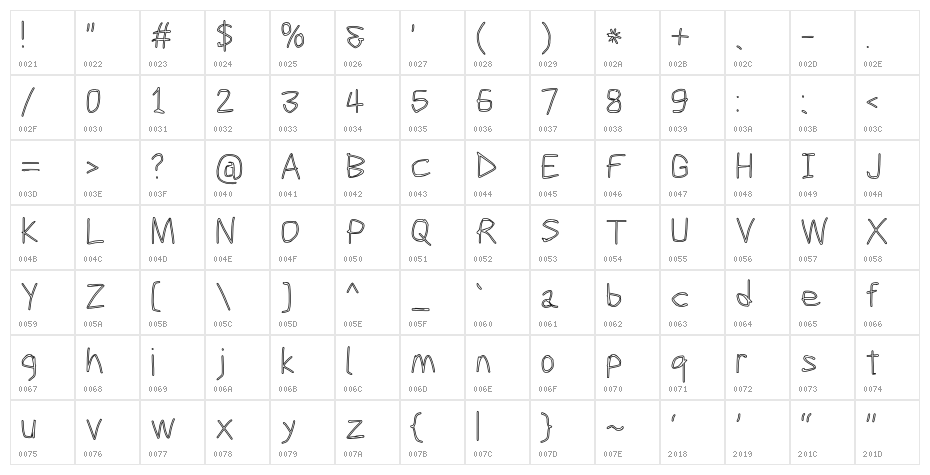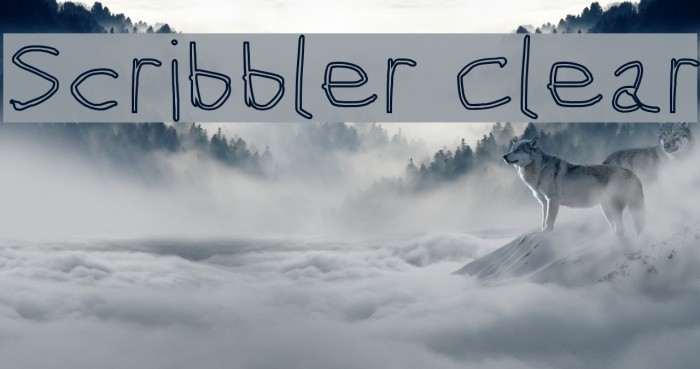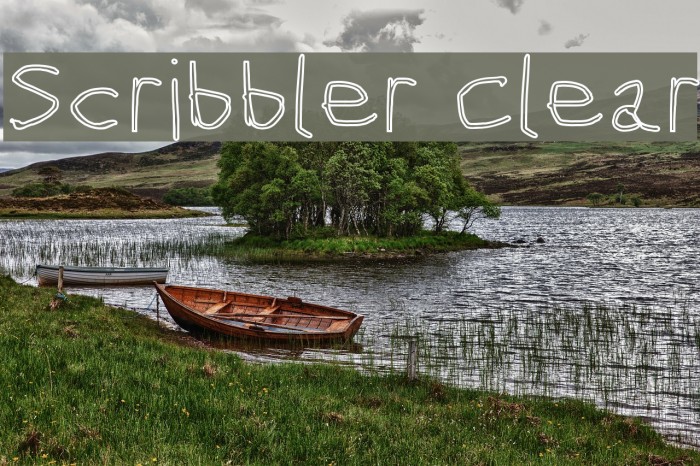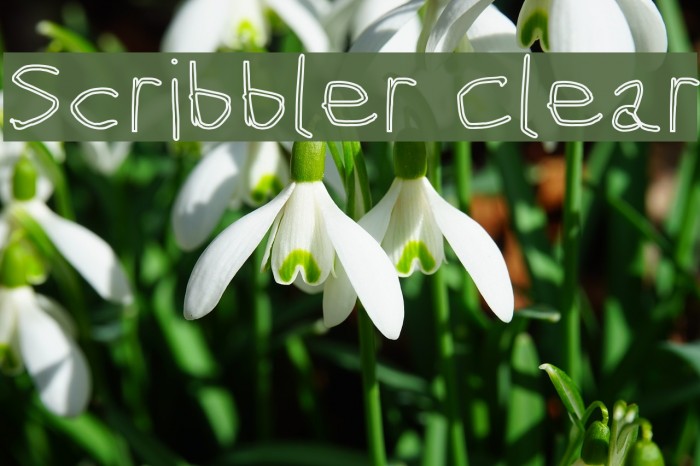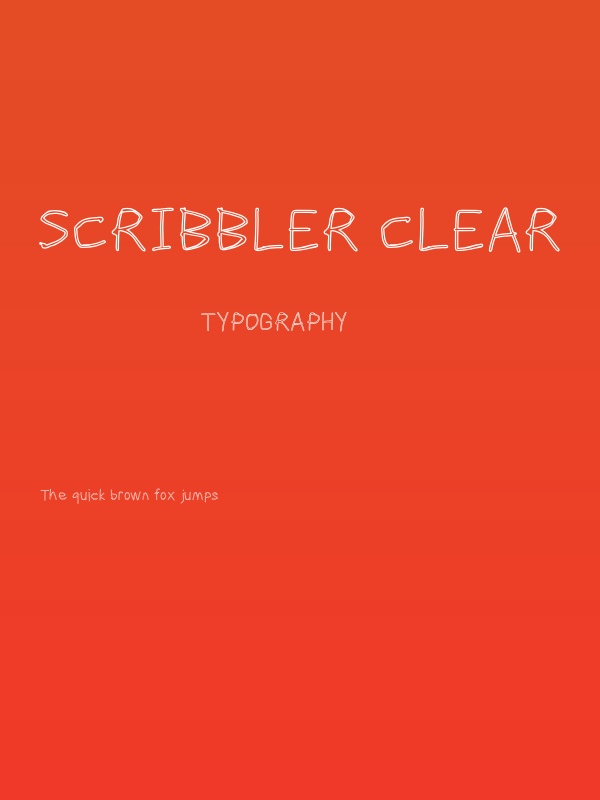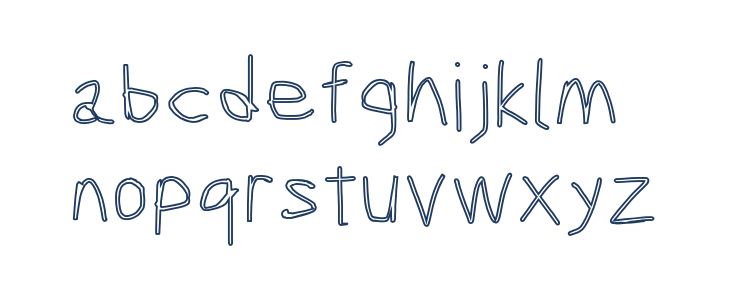
Scribbler Clear Font
Scribbler Clear Description
This playful and informal font features a hand-drawn style with a casual, sketch-like appearance. The characters are slightly irregular, giving them a whimsical and approachable feel. Each letter is outlined with a consistent stroke width, maintaining a cohesive look across the alphabet. The font includes both uppercase and lowercase letters, numerals, and a variety of special characters. Its unique, artistic design makes it stand out, while still being legible and versatile for various applications. The font's overall aesthetic is reminiscent of doodles or notes jotted down in a notebook, making it perfect for creative projects that require a personal touch.